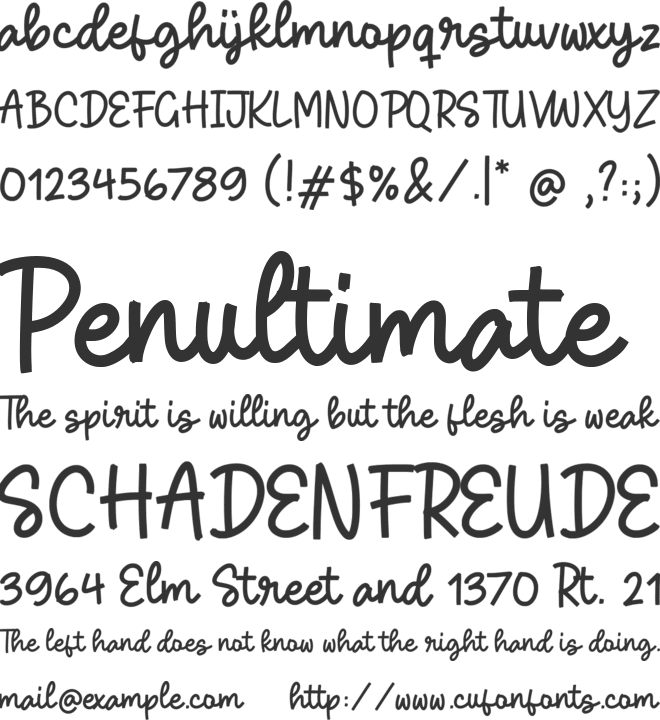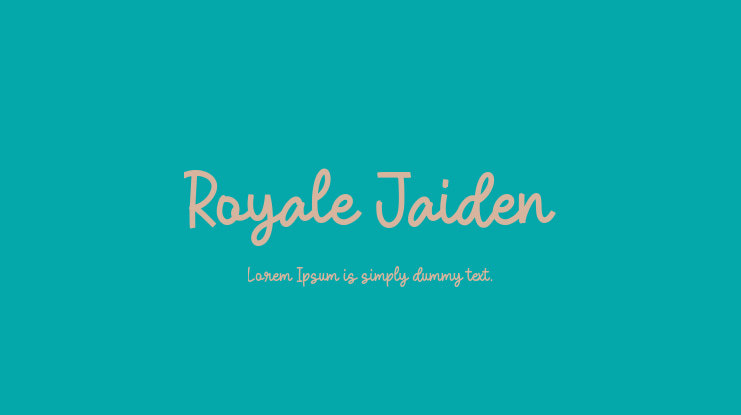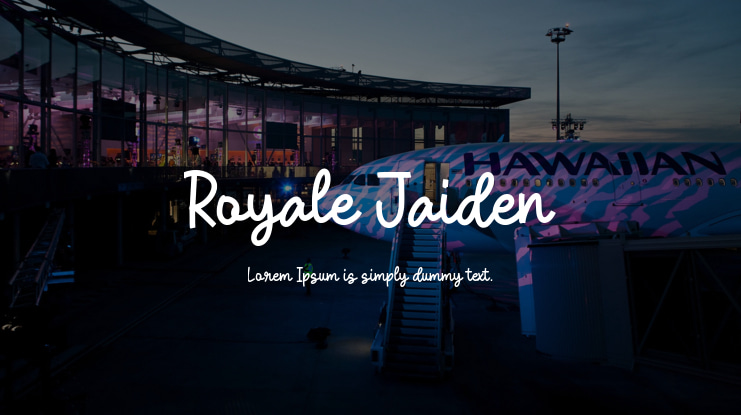
Royale Jaiden Font
Royale Jaiden is a Handwritten Script Font.
The monoline handwritten font lends a touch of charm and grace to our product, evoking a sense of timeless beauty. Each stroke of the pen has been meticulously crafted to create an enchanting script that is both fluid and delicate.
This carefully curated offering showcases the fusion of sophistication and simplicity, making it suitable for a wide range of occasions and purposes. From invitations and stationery to branding and digital design, our product in monoline handwritten font effortlessly elevates any project to new heights.
- also multilingual support